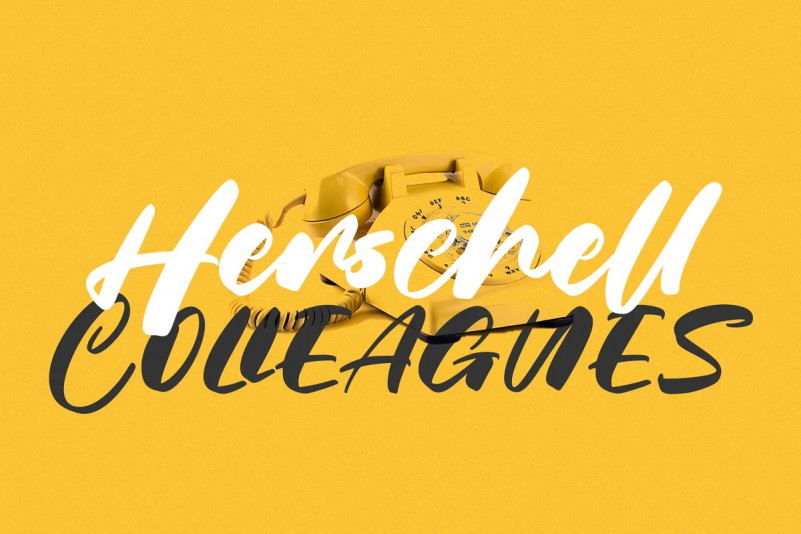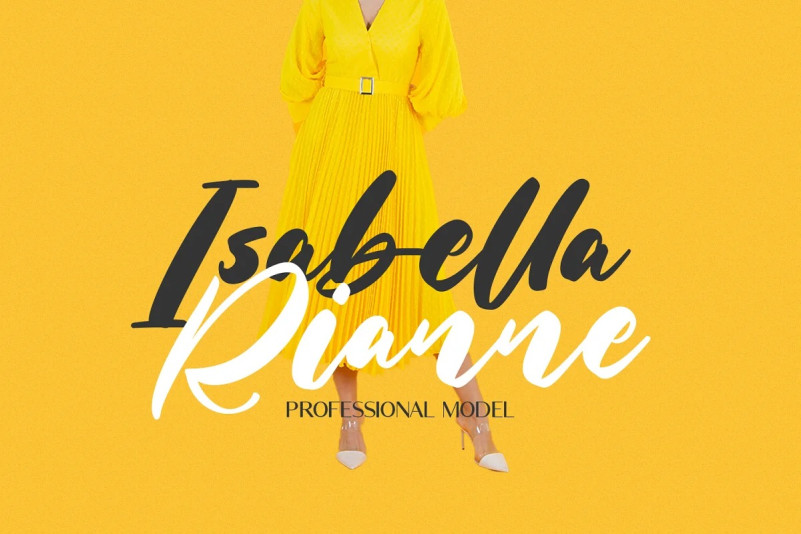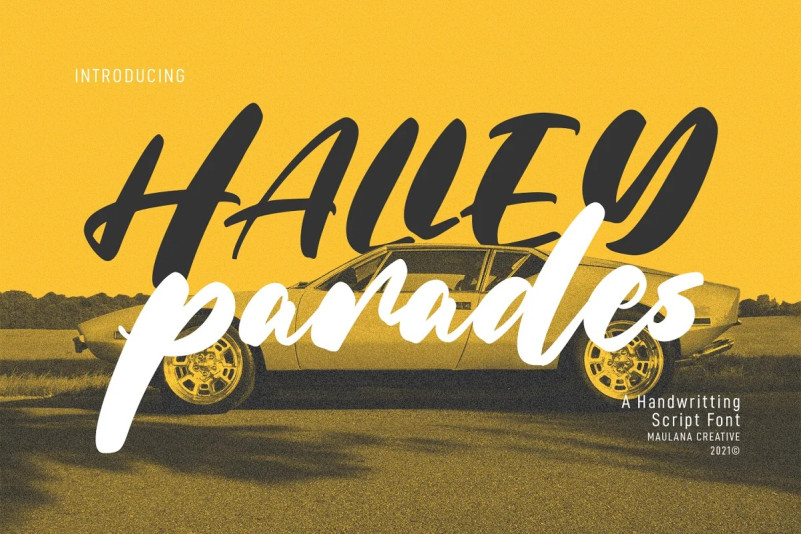
Halley Parades Font
Halley Parades Font is a Handwritten & Script font duo mix small caps & lowercase. With Bold Contrast stroke, fun character with a bit of ligatures. To give you an extra creative work. Halley Parades font support multilingual more than 100+ language. This font is good for logo design, Social media, Movie Titles, Books Titles, a short text even a long text letter and good for your secondary text font with sans or serif. Make a stunning work with Halley Parades font.